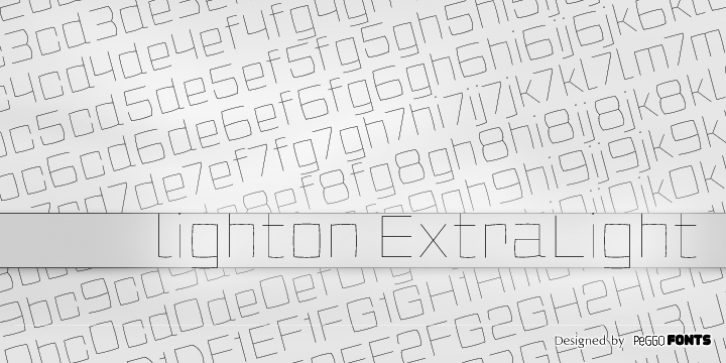
Lighton is a contemporary and modern display font, inspired on Fonton font a bigger ton barrel shape.
Lighton is a modern and very thin font inspired on Fonton and equivalent to its ExtraLight weight, designed as posters font, inspired on “Ton” shape, with very soft curves drawing each fine stroke. Is useful in poster but also in Fashion headings, letterhead, magazines, POP & Graphic culture, hip-hop topics, urban representations, and big sizes prints, etc.
Now decorative ligatures, alternates and figures as the same graphic style as Fonton all powered by OTF technology.